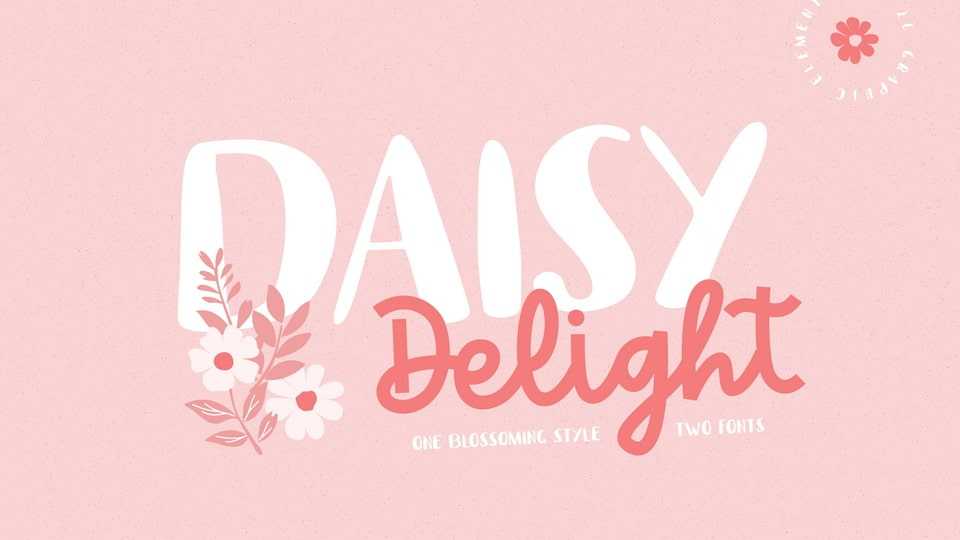
Download Daisy Delight font, a fun typeface that features simple handwritten and playful calligraphy fonts, inspired by the joyful essence of daisies in full bloom.
Designer: Helotype